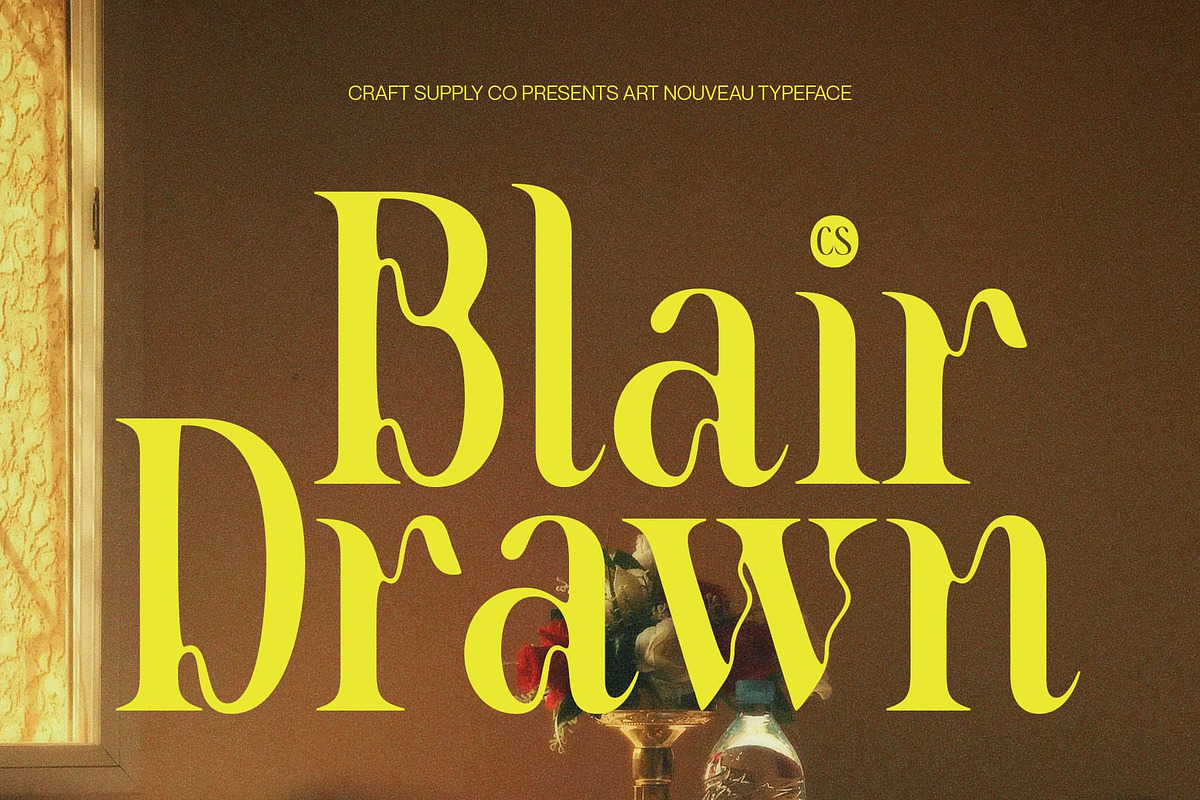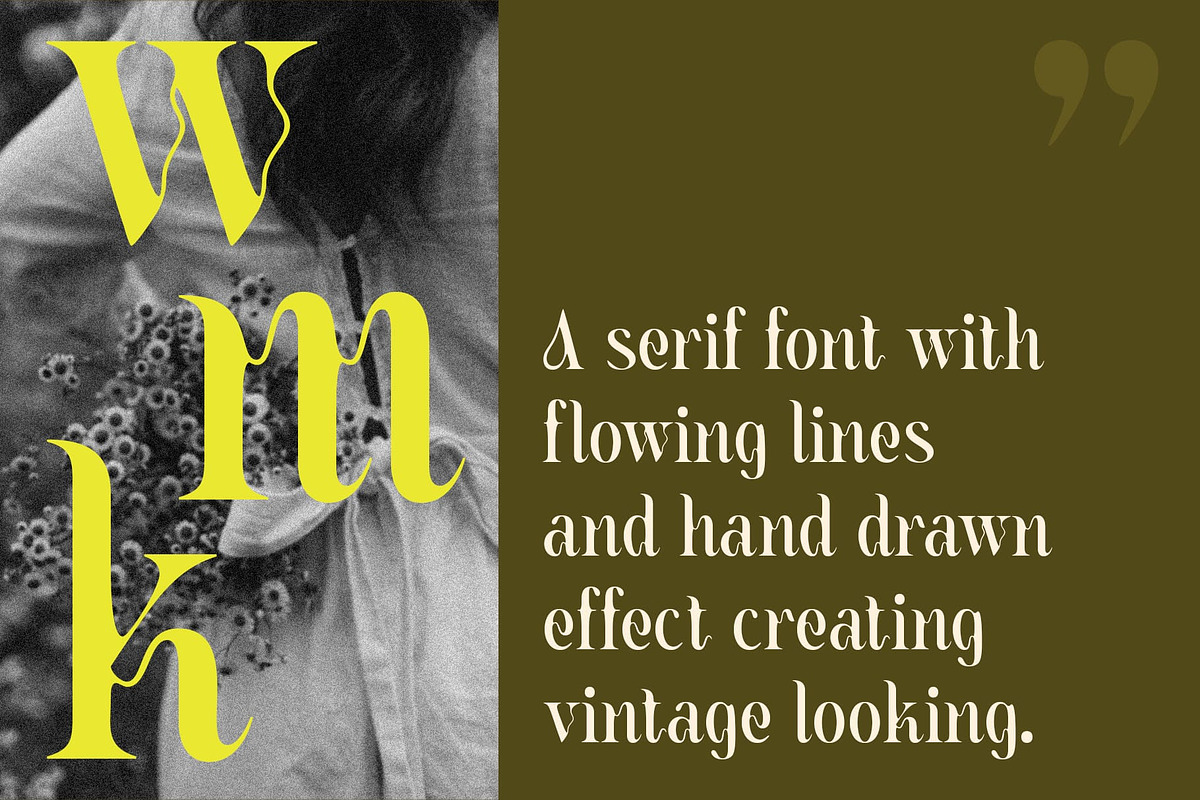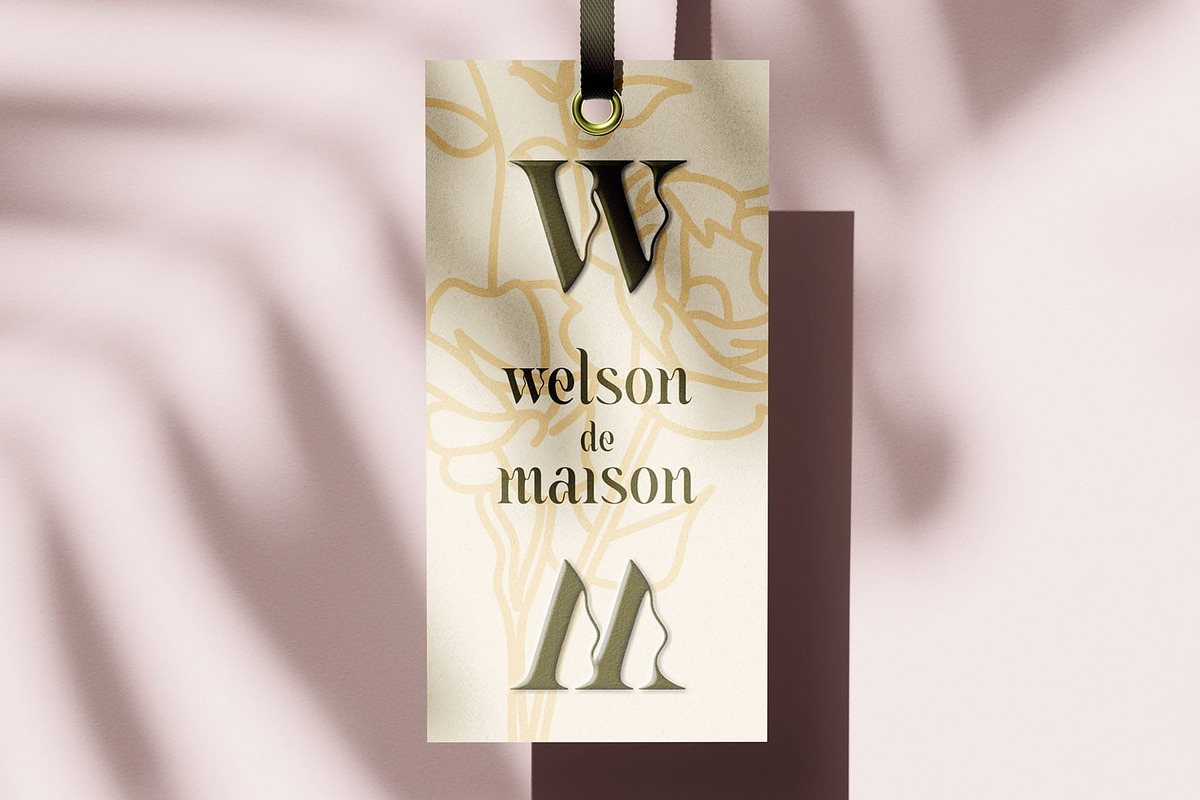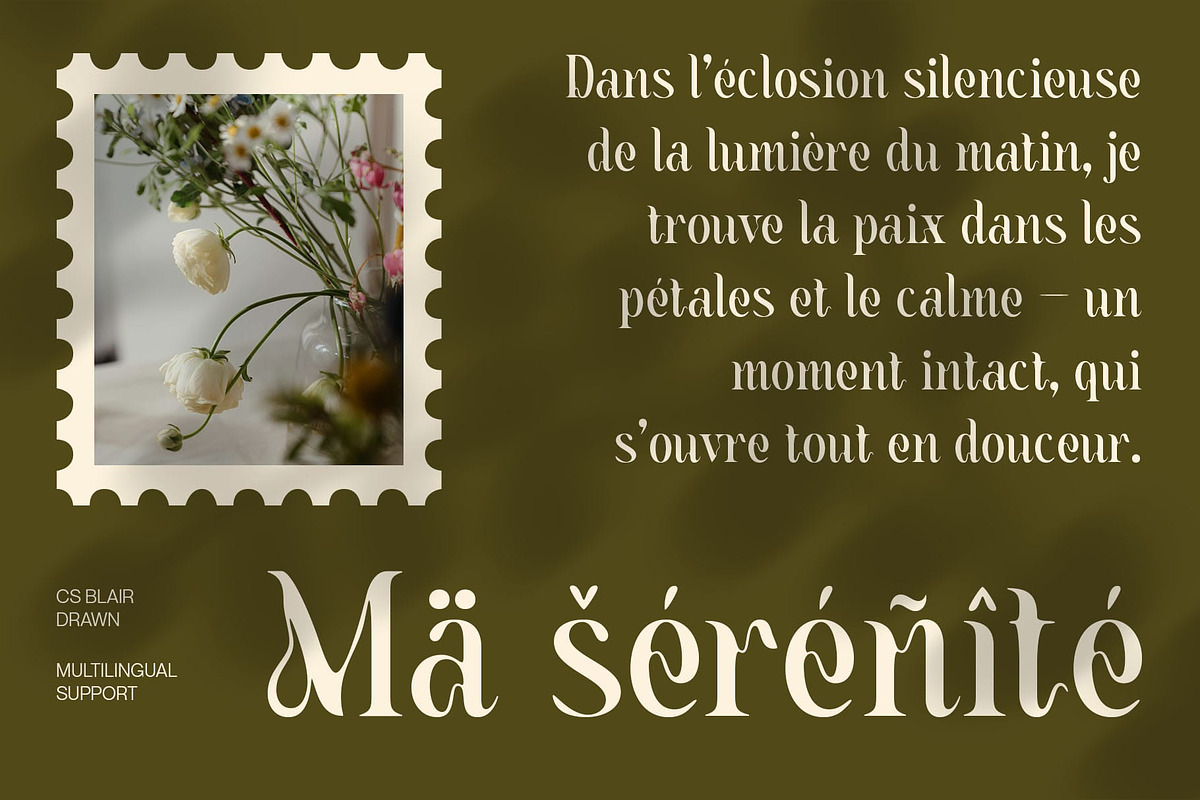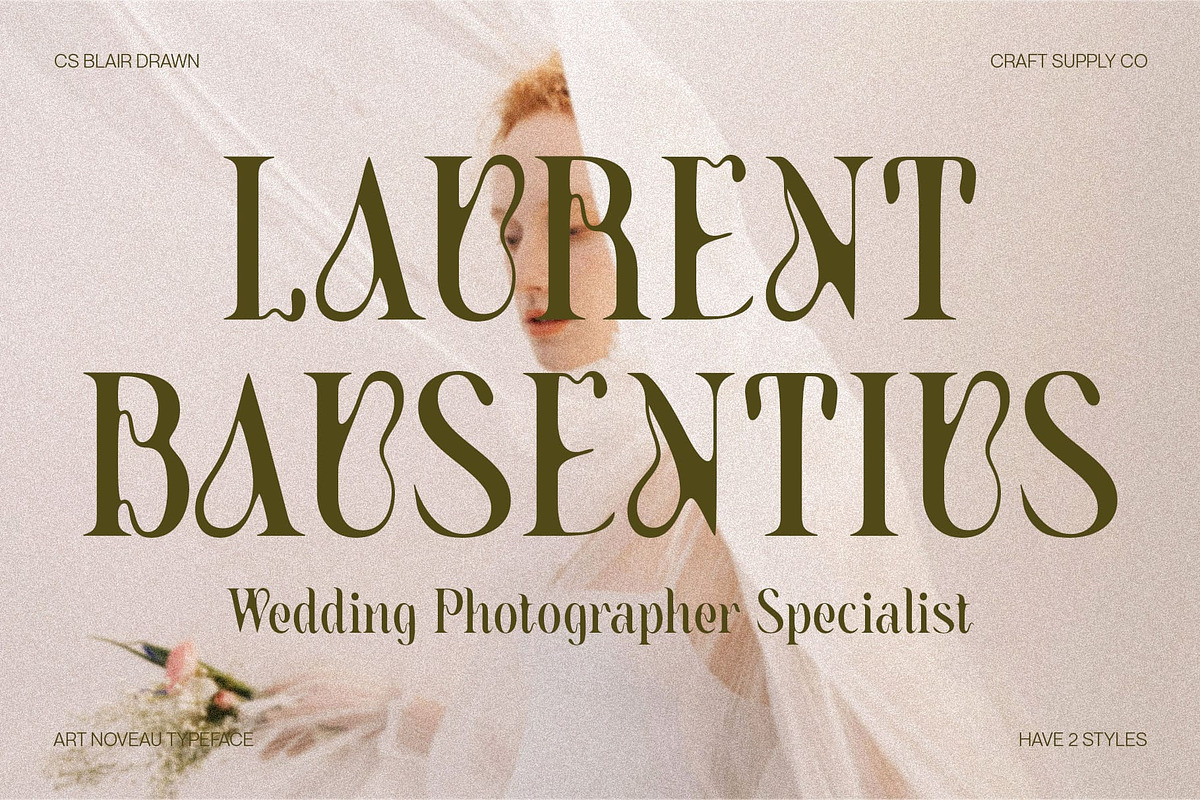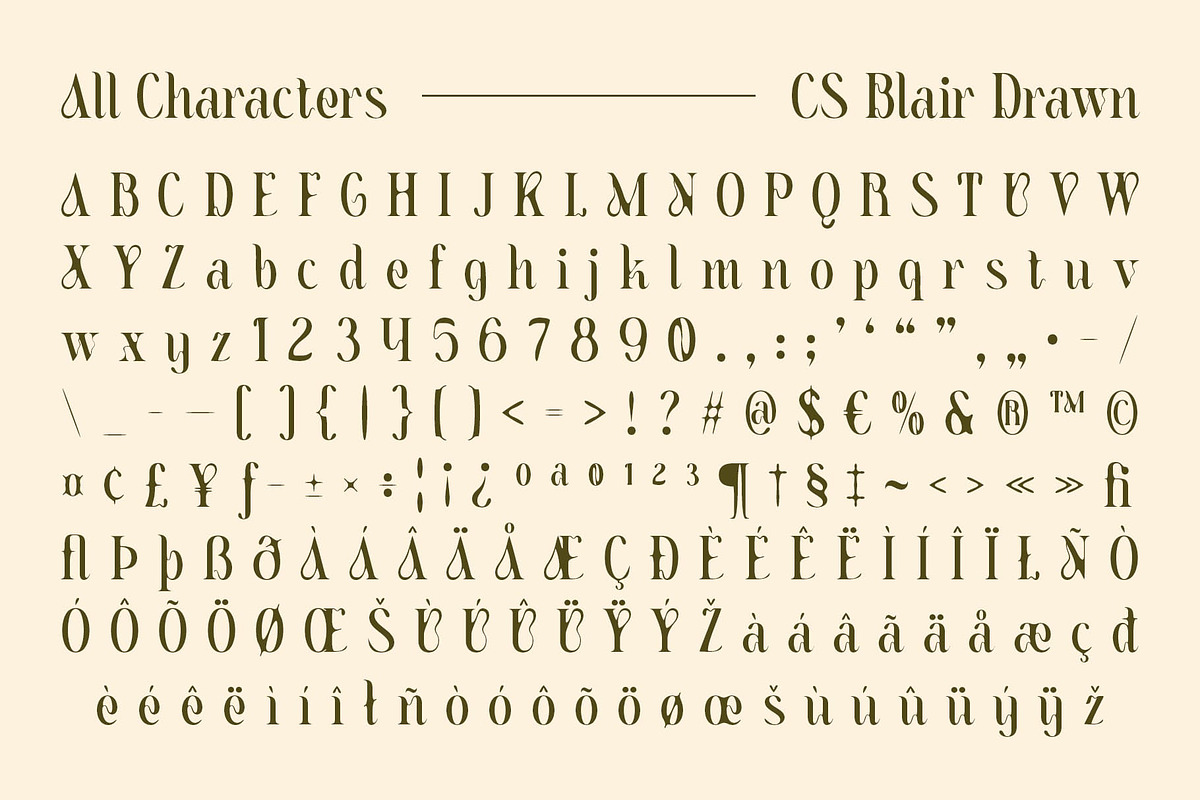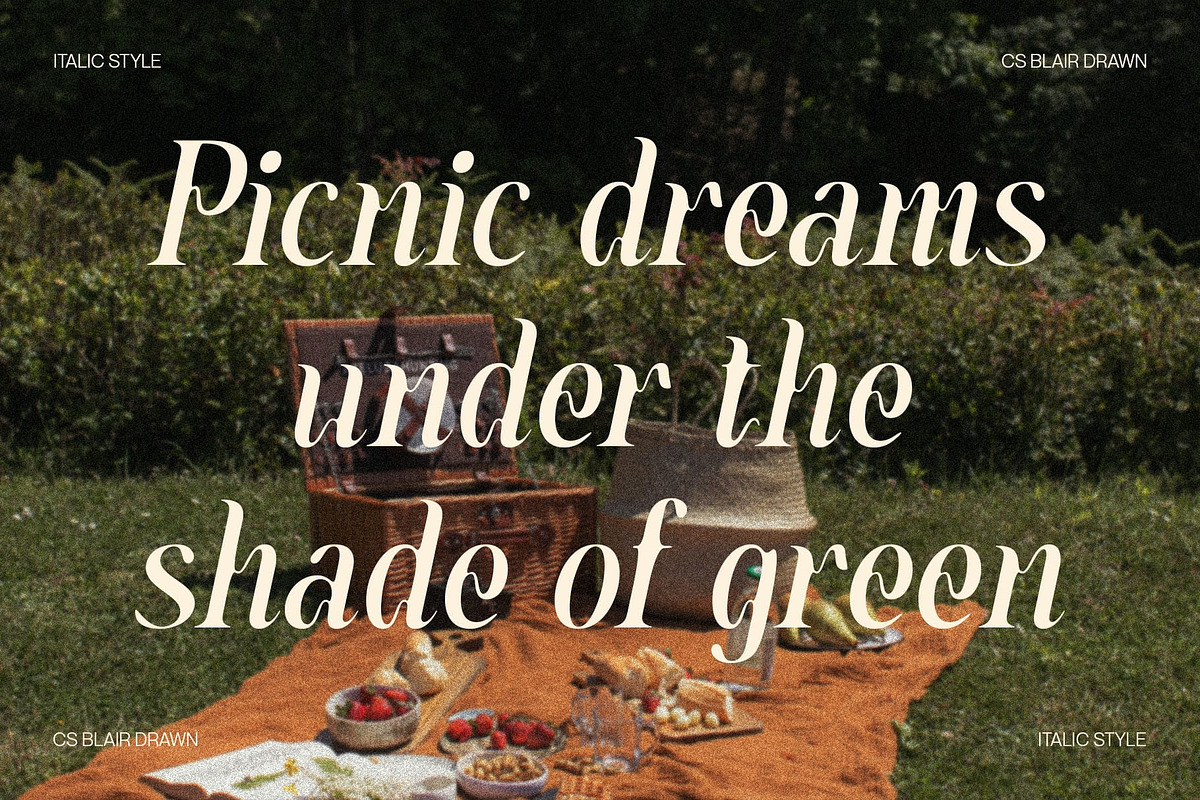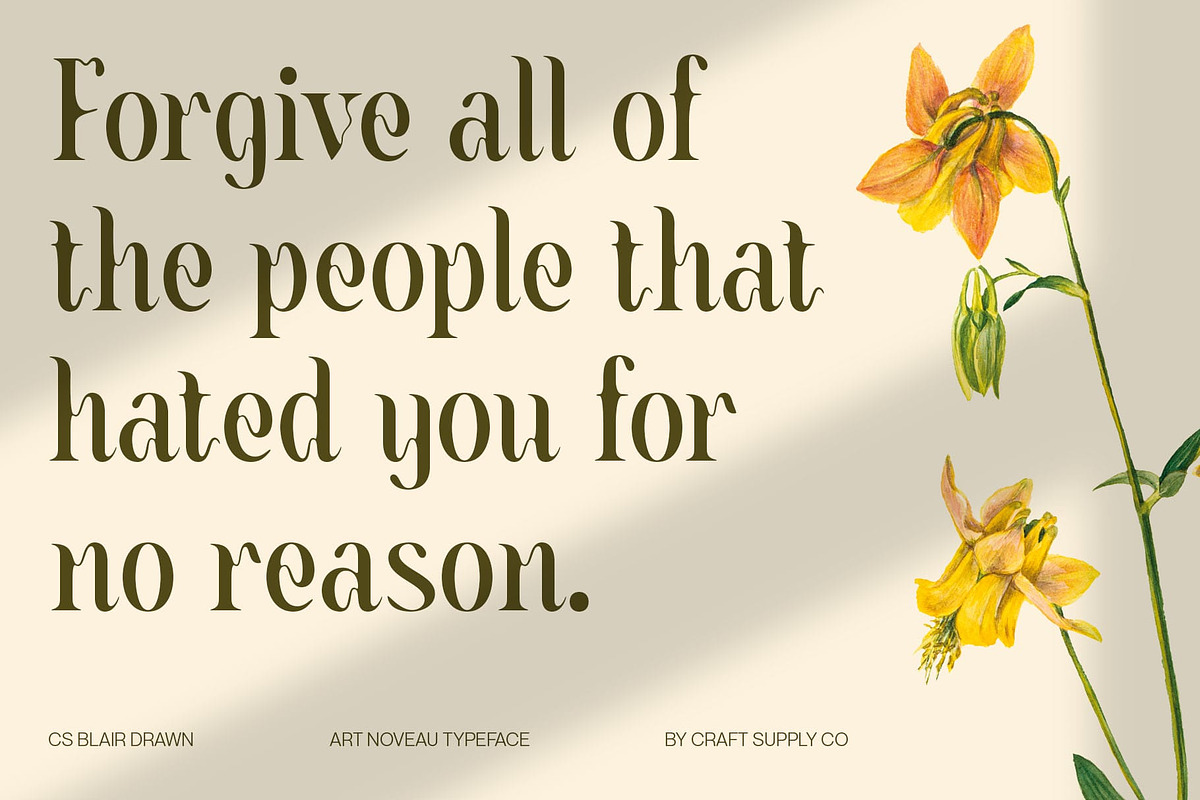
CS Blair Drawn
CS Blair Drawn – Elegant Serif with Art Nouveau Grace
Modern Serif with Art Nouveau Influence CS Blair Drawn is a refined serif font that artfully merges modern style with the ornamental beauty of Art Nouveau. Its letterforms balance clean, contemporary geometry with soft, flowing curves, bringing a timeless sense of elegance and sophistication to your designs.
Handcrafted Feel with Drawn Effect What sets this artistic font apart is its distinctive drawn effect—adding an organic, handcrafted texture to its otherwise polished structure. This detail introduces warmth and authenticity, making the font feel more personal and expressive. The drawn effect enhances the visual character of the typeface.
Feminine, Ornamental, and Expressive Graceful and expressive, this drawn font celebrates the beauty of ornamentation without compromising legibility. Its gentle curves, decorative flair, and harmonious proportions evoke a feminine energy and artistic spirit. This makes it ideal for storytelling through design—whether you’re communicating luxury, romance, or creative identity.
Perfect for Editorial and Luxury Branding Whether used in fashion editorials, luxury branding, packaging, invitations, or high-end product displays, it elevates every composition it’s featured in. Its stylistic elegance and handcrafted charm allow it to shine in both headline treatments and supporting text, offering versatility and impact. Bring charm, poise, and a creative soul to your design work with this unique font.